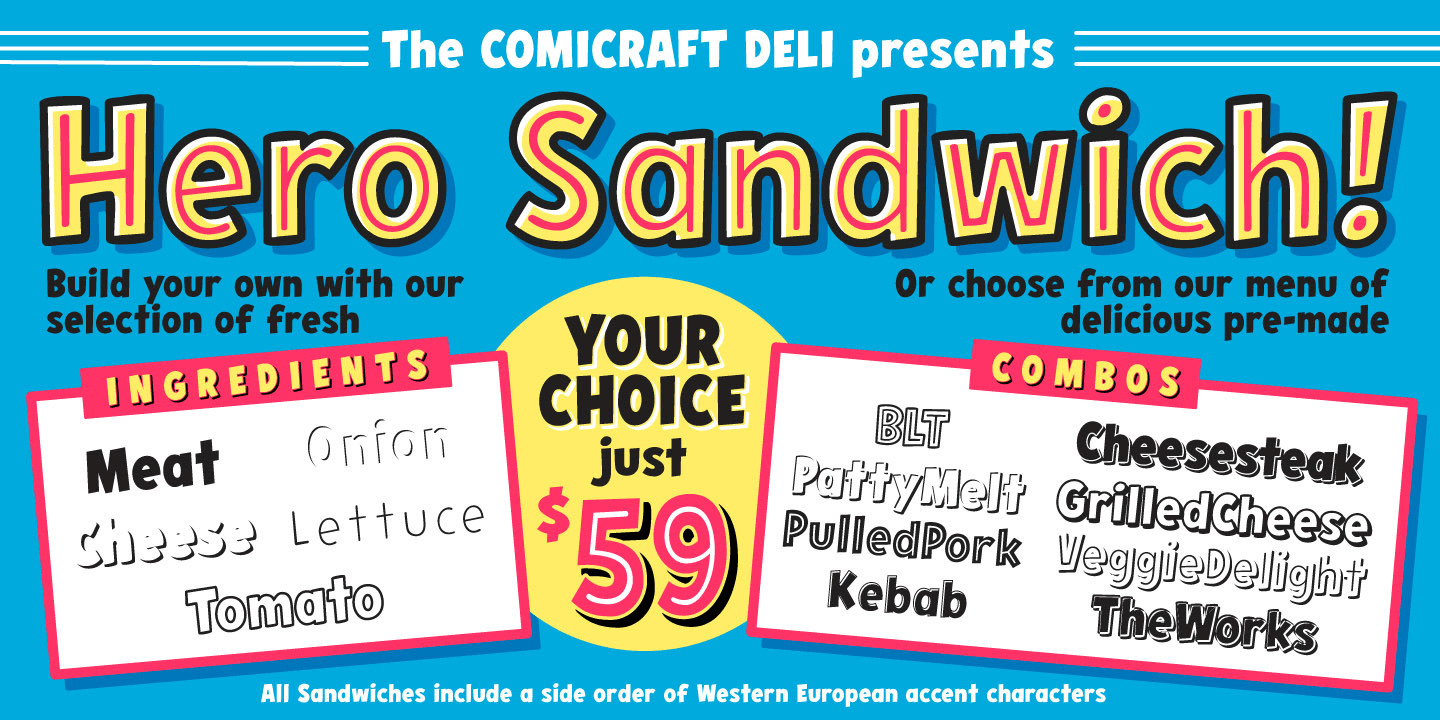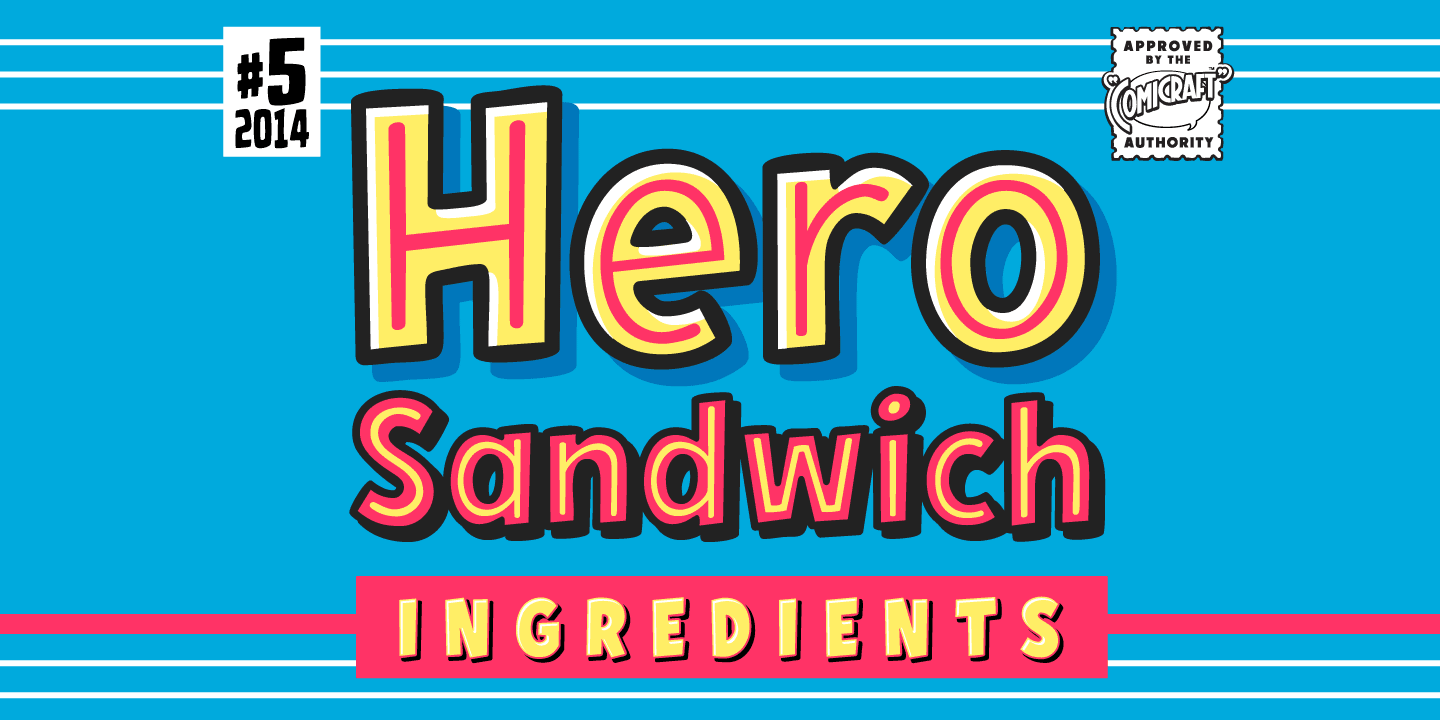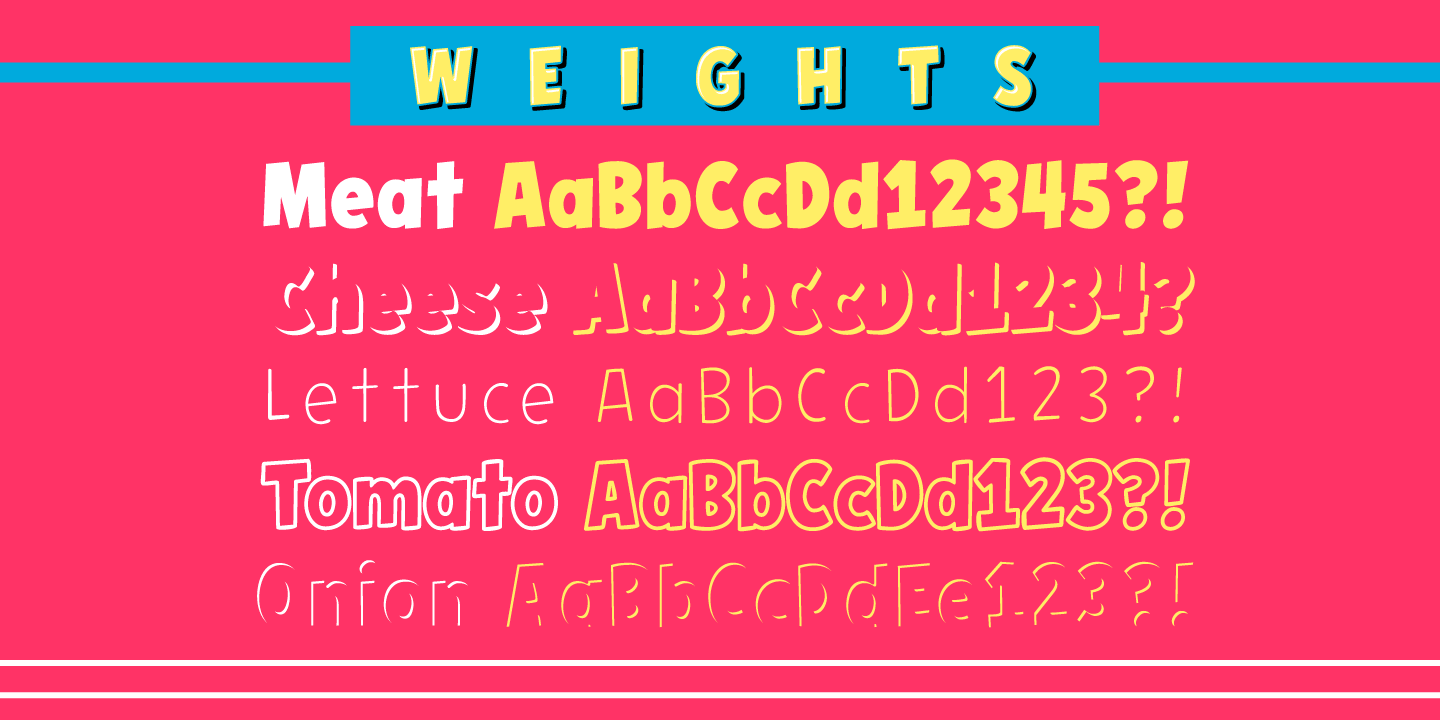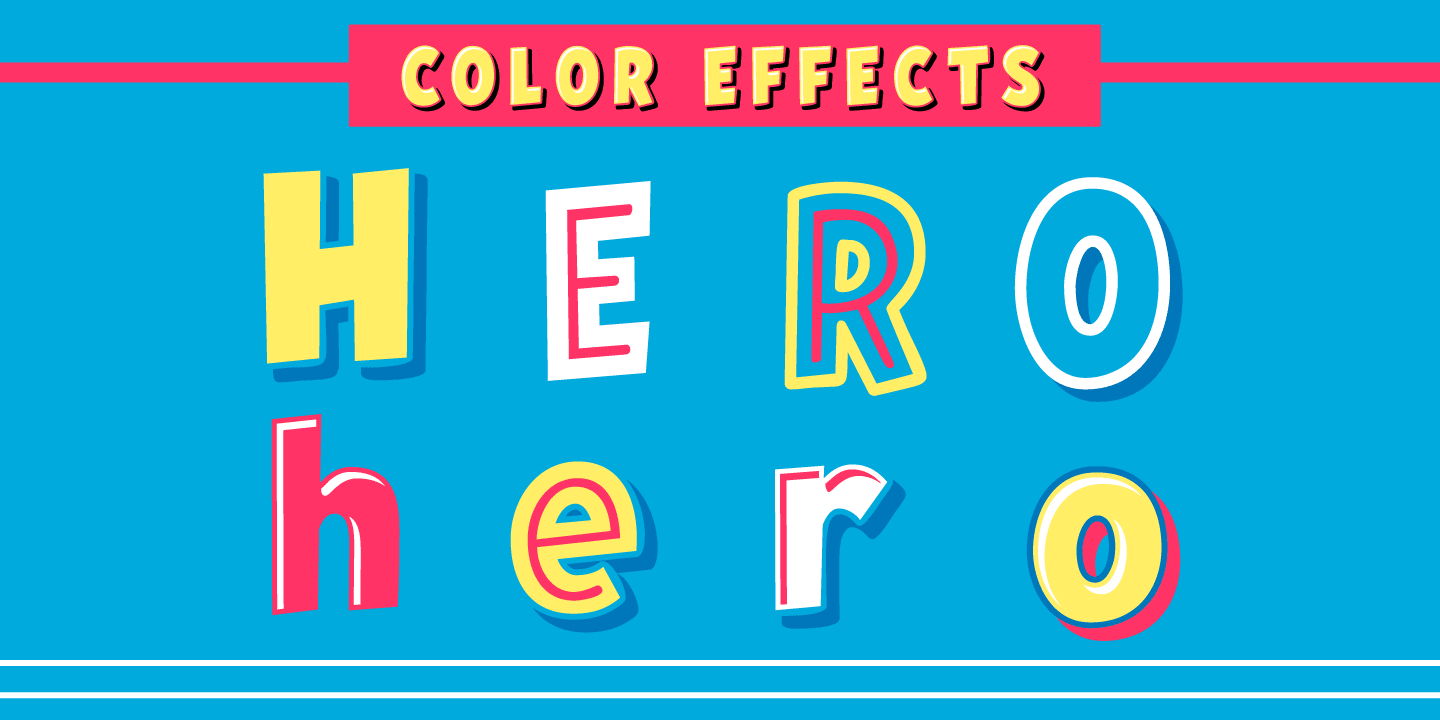
Hero Sandwich Ingredients
Font Family by Comicraft Fonts
Anyway you slice it, these five Ingredients can be layered to generate a Hero Sandwich with the carbs and protein you need to deliver a knuckle sandwich to the bulking agents of your deadliest foes!"